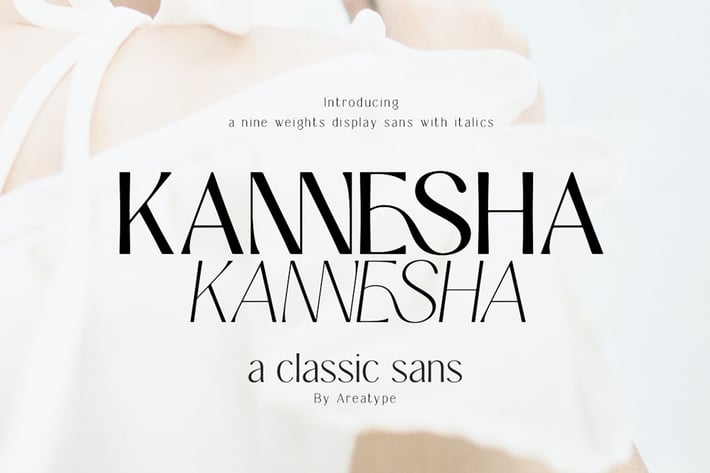
Kannesha Sans Serif (18 fonts)
Areatype
Kannesha Sans serif is a very versatile font. perfect for magazine images, to wedding invitations, to branding, poster design, and more.